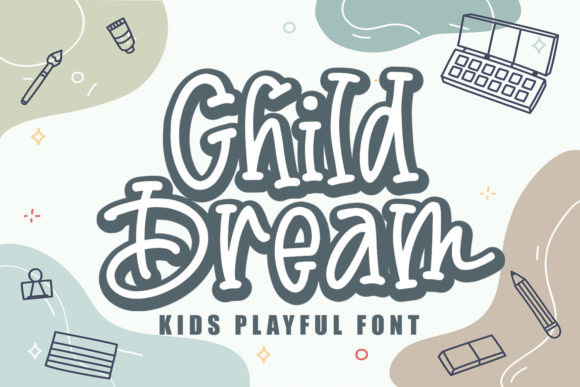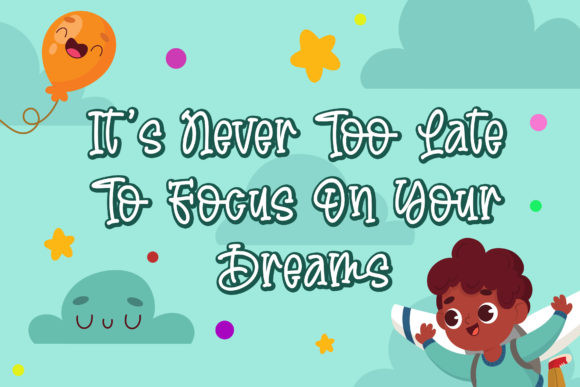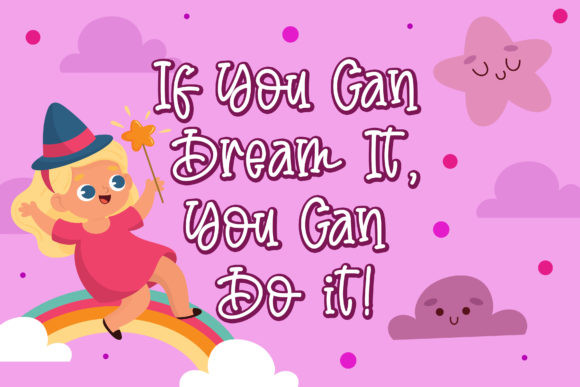
Child Dream Font
Child Dream is a cute and quirky handwritten font. Incredibly friendly and relaxed, this font will make each of your designs look lovely.